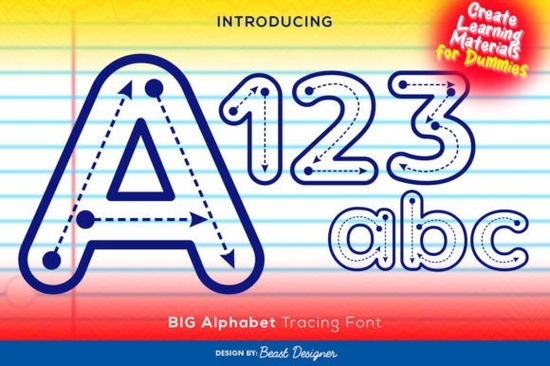
If you create educational worksheets, children’s books, or printable learning kits, finding a typeface that actually guides little hands can be tricky. The Big Alphabet Tracing Font solves that problem by offering clear, dotted pathways that make letter practice feel approachable. Designed with early learners in mind, it brings a friendly structure to any page while keeping the focus on proper stroke order. Teachers, parents, and small business owners who sell digital downloads will appreciate how easily it drops into Canva, Illustrator, or standard word processors.
What makes a tracing typeface actually useful for kids?
Not every educational font works well in practice. Some are too cramped, others lack consistent baseline guides, and many fail to show children where to start each stroke. This design fixes those issues by using generous character spacing and clear directional cues. The rounded edges reduce visual clutter, which helps young readers focus on one letter at a time. When you lay out a workbook, you want a typeface that handles the heavy lifting so you do not have to manually add arrows later.
For crafters and print-on-demand sellers, the clean structure means better print quality. Thin, overly decorative strokes often break down on standard home printers or budget paper stocks. A sturdy tracing alphabet holds up nicely on matte cardstock, sticker paper, and laminated classroom charts. You can scale it up for wall posters or shrink it for flashcards without losing readability.
Which projects get the most value from this style?
Each format relies on consistent typography. When your letters align properly and maintain uniform weight, the final product looks professional and builds trust with buyers who expect classroom-ready quality.
How do I pair it with other display fonts without creating visual chaos?
You can also explore this playful educational typeface alongside simple sans-serif instruction text. Keeping secondary fonts neutral ensures the material stays accessible.